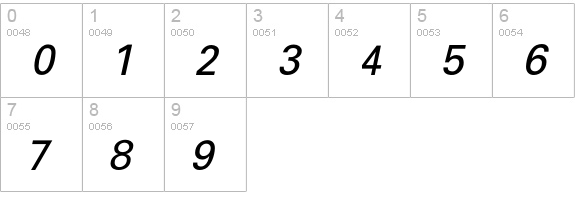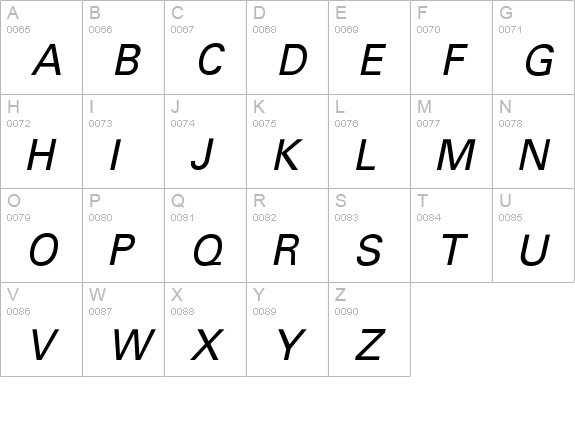
UniformBookOblique Font Details
UniformBookOblique is a stunning font that combines elegance and modernity in a unique and captivating way. With its sleek and oblique design, this typeface adds a touch of sophistication to any project, making it perfect for both digital and print applications. The UniformBookOblique font boasts clean lines and a balanced appearance, making it highly readable and versatile. Its distinctive slant gives it a dynamic and eye-catching quality, making it ideal for headlines, titles, and logos that demand attention. This font is not only visually appealing but also highly functional. With its wide range of characters and glyphs, UniformBookOblique can be used to create a variety of typographic styles, from bold and impactful to subtle and refined. One of the best things about UniformBookOblique is that it is available for free download at FontsMarket.com. This means that you can easily access and use this amazing font in your projects without any cost. Whether you are a professional designer or a casual user, this font offers you the opportunity to enhance your creations with a touch of elegance and sophistication, at no expense. So why wait? Download UniformBookOblique from FontsMarket.com today and elevate your designs to a whole new level.